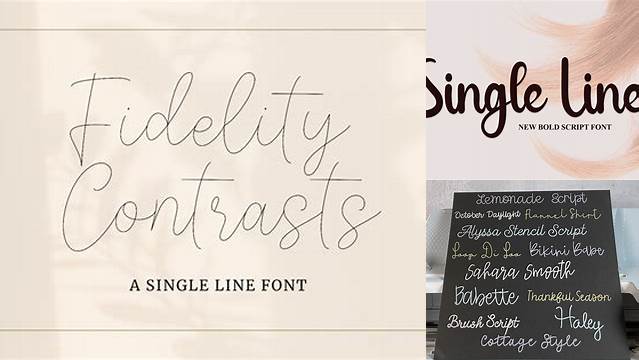
Single Line Fonts For Cricut On DaFont: A Comprehensive Guide
Are you looking for the perfect single line fonts for your Cricut projects on DaFont? Look no further! This comprehensive guide will walk you through everything you need to know about finding, selecting, and using single line fonts to create stunning designs with your Cricut machine. Whether you're a seasoned crafter or just starting out, understanding single line fonts is essential for achieving professional-looking results.
What are Single Line Fonts?
Single line fonts, also known as single stroke fonts, are specifically designed for drawing or engraving with a single continuous line. Unlike traditional fonts that have outlines, single line fonts consist of just one path, making them ideal for projects where you want a delicate and minimalist look. These fonts are particularly useful for:
- Engraving: Creating intricate designs on materials like metal, wood, or acrylic.
- Writing with Pens: Using your Cricut to write or draw with pens, markers, or calligraphy tools.
- Foiling: Adding elegant foil accents to your projects.
- Scoring: Creating score lines for folding cards or boxes.
Why Use Single Line Fonts with Cricut?
Using single line fonts with your Cricut opens up a world of creative possibilities. Here’s why they’re a game-changer:
- Efficiency: Single line fonts allow your Cricut to complete designs faster because it only needs to trace one line instead of filling in an outline. This is especially beneficial for intricate or large projects.
- Precision: These fonts offer unparalleled precision, resulting in clean and crisp lines that are perfect for detailed designs. This is crucial for achieving a professional and polished look.
- Unique Aesthetics: Single line fonts provide a unique and elegant aesthetic that’s difficult to achieve with traditional fonts. The minimalist style adds a touch of sophistication to any project.
- Versatility: From personalized gifts to home décor, single line fonts can be used in a wide range of projects, making them a versatile addition to your crafting toolkit.
Finding Single Line Fonts on DaFont
DaFont is a popular online resource for downloading free fonts, but finding true single line fonts can be tricky. Here’s how to navigate DaFont effectively:
Step-by-Step Guide:
- Use Keywords: In the search bar, try keywords like “single line,” “single stroke,” “engraving fonts,” or “writing fonts.” Experiment with different combinations to broaden your search.
- Browse Categories: Explore the various font categories, such as “Basic,” “Script,” and “Techno,” as single line fonts can be found in unexpected places.
- Preview Fonts: Carefully preview each font by typing in your desired text. This will give you a clear idea of how the font looks and whether it suits your project.
- Check User Comments: Read the comments section to see if other users have confirmed that the font works well as a single line font in Cricut Design Space.
Tips for Identifying True Single Line Fonts:
- Look for Thin Lines: Single line fonts typically have very thin lines without any visible outlines.
- Test in Cricut Design Space: Download a few potential fonts and test them in Cricut Design Space to see how they appear when you select the “Draw” or “Engrave” operation.
- Check for Overlapping Lines: Avoid fonts that have overlapping lines or closed shapes, as these will be interpreted as fill areas by your Cricut.
Using Single Line Fonts in Cricut Design Space
Once you've found the perfect single line font on DaFont, the next step is to use it in Cricut Design Space. Here’s a detailed guide:
Importing Fonts:
- Download the Font: After finding a suitable font on DaFont, download it to your computer. The font file will usually be in a ZIP format.
- Extract the Font: Unzip the downloaded file to access the font file (usually in .ttf or .otf format).
- Install the Font: Double-click the font file and click “Install.” This will install the font on your computer, making it available for use in Cricut Design Space.
Designing with Single Line Fonts:
- Open Cricut Design Space: Launch Cricut Design Space and start a new project.
- Add Text: Click on the “Text” tool and type in your desired text.
- Select the Font: Choose the single line font you installed from the font dropdown menu. If you don’t see the font, try restarting Cricut Design Space.
- Change the Linetype to “Draw” or “Engrave”: In the “Linetype” menu, select “Draw” if you want to use pens or markers, or “Engrave” if you want to engrave your design. This tells your Cricut to trace the font instead of cutting it out.
- Adjust Size and Position: Resize and position the text as needed. Use the alignment tools to ensure your design is perfectly aligned.
Tips for Optimal Results:
- Use the Correct Pen or Tool: Choose a pen or tool that’s compatible with your Cricut machine and suitable for the material you’re working with.
- Adjust Pressure and Speed Settings: Experiment with different pressure and speed settings to find the optimal settings for your chosen font and material. Lower pressure and slower speeds often produce the best results.
- Test Before Committing: Always do a test cut or draw on a small piece of scrap material before committing to your final project. This will help you identify any issues and make necessary adjustments.
Best Single Line Fonts on DaFont (Examples)
While availability can change, here are some examples of fonts that users have reported working well as single line fonts on DaFont:
- KG Penmanship Fonts: Many of Kimberly Geswein's fonts work well for single-line writing.
- Always in My Heart: A delicate script font that’s perfect for adding a personal touch to your projects.
- Skinny Marker: A casual and playful font that mimics the look of handwriting.
Note: Always test these fonts in Cricut Design Space to ensure they meet your needs, as font characteristics can vary.
Even with the best single line fonts, you might encounter some issues. Here’s how to troubleshoot them:
Font Not Appearing in Cricut Design Space:
- Restart Cricut Design Space: Sometimes, simply restarting the program can resolve font visibility issues.
- Restart Your Computer: If restarting Cricut Design Space doesn’t work, try restarting your computer.
- Ensure Font is Installed Correctly: Double-check that the font is properly installed on your computer. If necessary, reinstall the font.
Lines Not Connecting Properly:
- Weld the Letters: If the letters in your text are not connecting properly, try using the “Weld” tool in Cricut Design Space to join them together.
- Adjust Letter Spacing: Adjust the letter spacing to ensure that the letters are close enough to connect smoothly.
Font Appears Filled In Instead of Single Line:
- Ensure Linetype is Set to “Draw” or "Engrave": Double-check that you have selected the “Draw” or "Engrave" linetype in Cricut Design Space. If the linetype is set to “Cut,” the font will appear filled in.
- Choose a Different Font: If the font consistently appears filled in, it may not be a true single line font. Try using a different font.
Advanced Tips and Tricks
To take your single line font projects to the next level, consider these advanced tips and tricks:
Combining Fonts:
Experiment with combining different single line fonts to create unique and visually appealing designs. Pair a script font with a sans-serif font for a balanced look.
Adding Embellishments:
Enhance your designs by adding embellishments such as flourishes, banners, or icons. These can be easily created in Cricut Design Space or imported from other design programs.
Working with Multiple Layers:
Create depth and dimension in your projects by working with multiple layers. Use different colors and materials to make your designs stand out.
Using Offset Feature:
The offset feature in Cricut Design Space can add a beautiful outline to your single-line fonts, making them pop and giving them a more substantial presence on your projects.
Mastering single line fonts for Cricut on DaFont can significantly enhance your crafting capabilities. By understanding what single line fonts are, how to find them, and how to use them effectively in Cricut Design Space, you can create stunning and professional-looking projects that are sure to impress. So go ahead, explore the world of single line fonts and unleash your creativity!